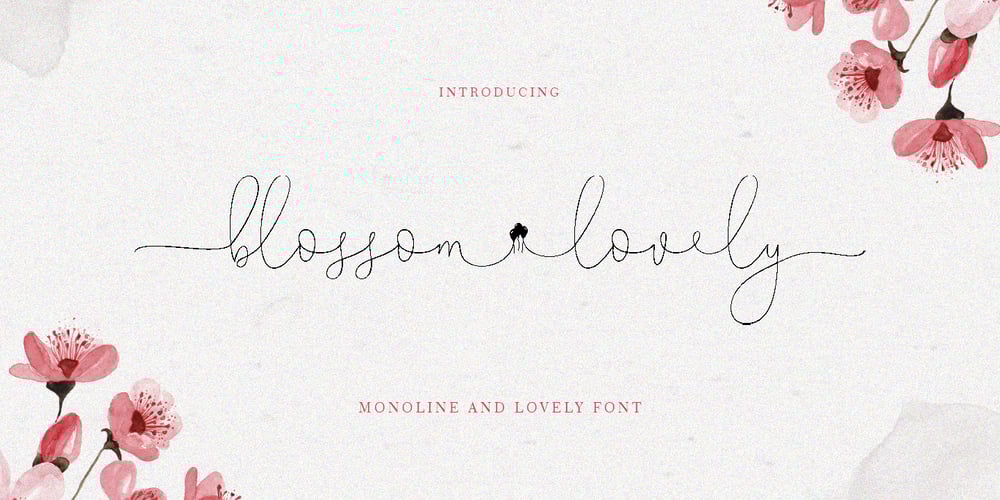
Blossom Lovely Font Family was designed by Romi Rahmadi and published by Romie Creative. Blossom Lovely contains 1 styles and family package options. blossom lovely is an elegant monoline script font that works just fine. I’ve always dreamed of designing a font that feels welcoming, Smooth lines, single weight lines and charming variations of blossom lovely achieve the ideal balance of humanity and clarity. This font is perfect for branding and marketing campaigns that call for personality and friendliness.My goal with this font is to create a readable script font that will serve a variety of purposes. This font maintains personality in creating a consistent character set. It has a handmade taste and provides a hint of authenticity; perfect for your upcoming project. Do not miss!